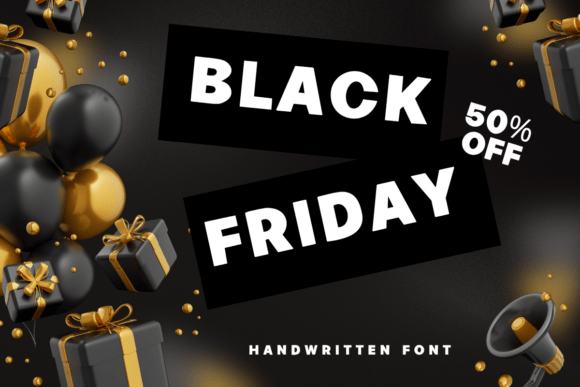
The Ultimate Black Friday Font: A Designer’s Best Friend for Sales and Promotions
I’ll never forget the chaos of working on a Black Friday sales campaign for a major retail client. The deadline was looming, and I was struggling to find the perfect font that could convey the urgency and excitement of the shopping event. The client wanted a font that would stand out on social media, banners, and in-store signage, but everything I tried seemed to fall flat. That was until I stumbled upon the Black Friday Font – a game-changing, bold font designed specifically for dominating sales banners and promotions.
- ✨ Attention-grabbing letterforms: The font’s strong, thick lines and clean design make it perfect for grabbing attention, even from a distance.
- ✅ Versatility: It works beautifully in both uppercase and lowercase, making it easy to use for a variety of design projects.
- ⚠️ Limited flexibility: While the font is fantastic for bold statements, it may not be the best choice for body text or more subtle designs.
- 🤔 Glyph limitations: Some users have noted that the font could benefit from a wider range of glyphs and special characters.
While the origins of the Black Friday Font might be shrouded in mystery, it’s clear that it was designed with one goal in mind: to help businesses stand out during the most competitive shopping events of the year. Imagine a designer tasked with creating the perfect font for Black Friday sales – they’d want something that’s not just bold, but also versatile and attention-grabbing. The Black Friday Font is the result of that vision, crafted to dominate banners, signage, and digital ads with its strong letterforms and clean design.
| Font Name | Black Friday Font |
| Author | Apiwat Type |
| What makes the Black Friday Font unique? | The Black Friday Font stands out due to its strong, thick letterforms and clean lines, making it perfect for grabbing attention and conveying urgency. |
| Can I use the Black Friday Font for both digital and print designs? | Absolutely! Its bold design works well for digital ads, social media graphics, store signage, and any other promotional materials. |
| Is the Black Friday Font suitable for body text? | While it’s primarily designed for headlines and bold statements, it can be used for short paragraphs of body text if you want to emphasize a point. |
| Are there any OpenType features available in the Black Friday Font? | Yes, the font includes OpenType features such as ligatures and stylistic alternates that can add variety and interest to your text. |